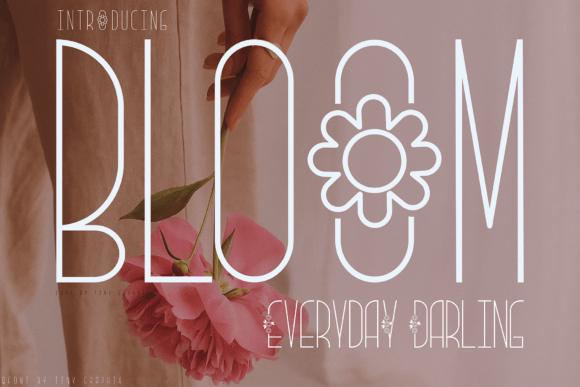
✨ Bloom Font: Elevate Your Designs with a Touch of Floral Elegance ✨
Have you ever been in the middle of a design project, and suddenly, you’re stuck on finding the perfect font? I recall a recent experience where I was working on a wedding invitation project, and my client requested a font that was both elegant and playful. After hours of searching, I stumbled upon the Bloom font, and it instantly became the perfect fit. In this article, we’ll dive into the world of Bloom Typeface, a whimsical floral decorative font that’s sure to bring a fresh, organic touch to your designs.
The Bloom Font: A Personal Review
As a designer, I’m always on the lookout for fonts that can help me create stunning projects. Here’s my honest review of the Bloom font:
- ✨ Delicate and stylish strokes that exude elegance
- ✅ Charming floral details that add a touch of whimsy
- 🌿 Perfect for designs that require a natural, organic feel
- 💐 Versatile and suitable for various design projects, from logos to greeting cards
- 🤔 Limited use for body text due to its decorative nature
- ⚠️ May not be suitable for very small font sizes, as details might get lost
The Story Behind Bloom Font
Bloom font was inspired by the beauty of nature and the elegance of floral arrangements. The designer aimed to create a font that would capture the essence of blooming flowers and bring a touch of whimsy to designs. With its delicate strokes and charming floral details, Bloom font is the perfect tool for designers and crafters who want to create eye-catching projects.
| Font Name | Bloom Font |
| Author | TINY GRAPHIX |
Q: What is Bloom font best used for?
Bloom font is perfect for designs that require a touch of elegance and whimsy, such as wedding invitations, greeting cards, logos, and social media graphics.
Bloom font may not be available in all languages, but it does come with a range of OpenType features and glyphs that can be used to create unique characters.
In conclusion, Bloom font is a versatile and elegant decorative font that’s perfect for designers and crafters who want to add a touch of floral elegance to their projects. With its delicate strokes, charming floral details, and range of OpenType features, Bloom font is sure to bring a fresh, organic touch to your designs.